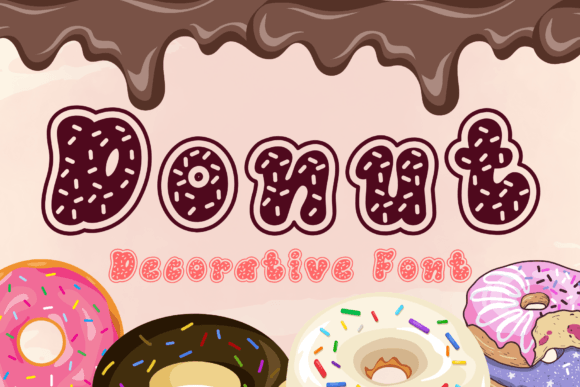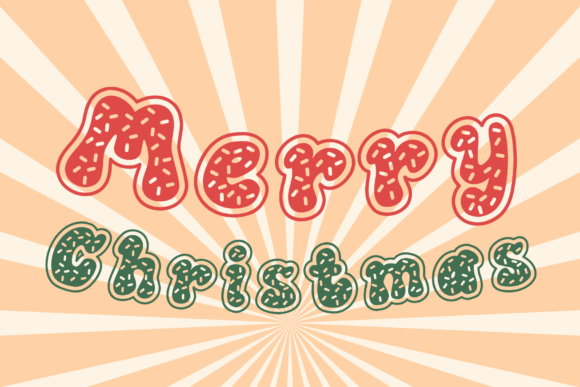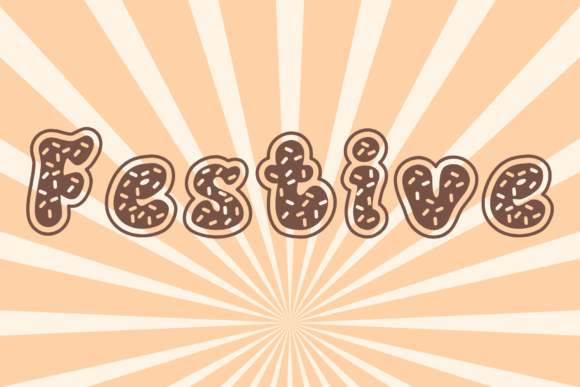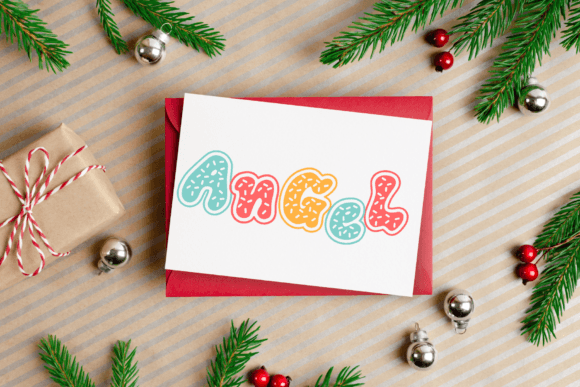
Donut Font
About the Donut Font
Welcome to the world of Donut Font, a typeface that will inspire your next great project. Donut is a Christmas decorative font. It embodies playfulness and authenticity and is the perfect choice for all your favorite projects, or even for blog posts, logos, branding, ads, invitations, greeting cards, planners, photo albums, decorations, and much more. Add it to any of your designs, and enjoy the results!
Donut Font’s playful, slightly quirky personality makes it ideal for headlines, short text blocks in posters or holiday-themed branding, and packaging designs. Its decorative nature, however, makes it less suitable for body text or UI elements where readability is paramount. Long paragraphs set in Donut Font would be visually overwhelming and difficult to read.
Consider pairing Donut Font with a clean sans-serif like Open Sans for a balanced contrast, or a classic serif like Garamond for a more traditional feel. For a bolder statement, a geometric sans-serif such as Montserrat could create a striking juxtaposition. Avoid pairing it with other highly decorative fonts, which would lead to visual clutter.
The font’s overall mood is cheerful and festive, making it a perfect fit for brands focusing on children’s products, holiday promotions, or anything requiring a lighthearted and whimsical touch.
Donut Font Usage Examples
Donut Font Example